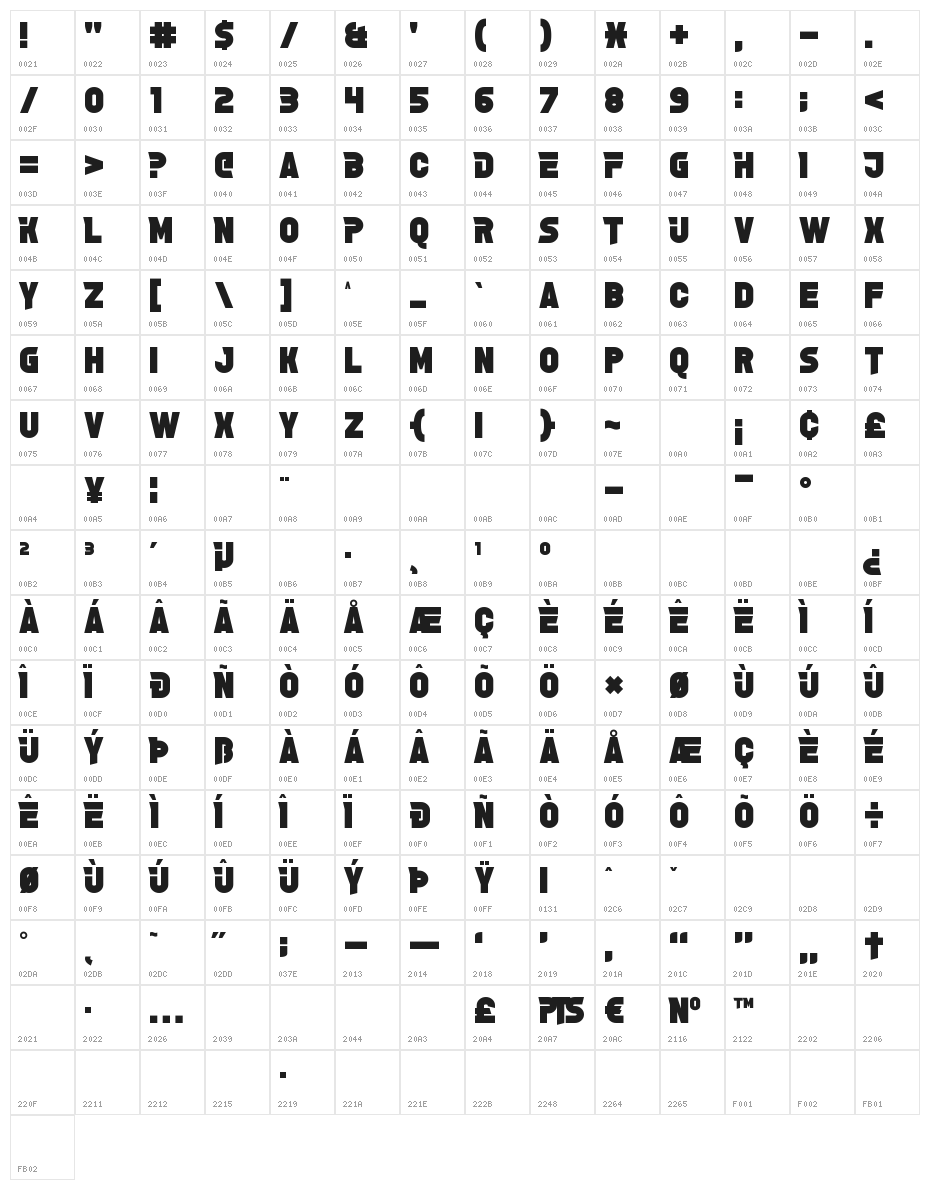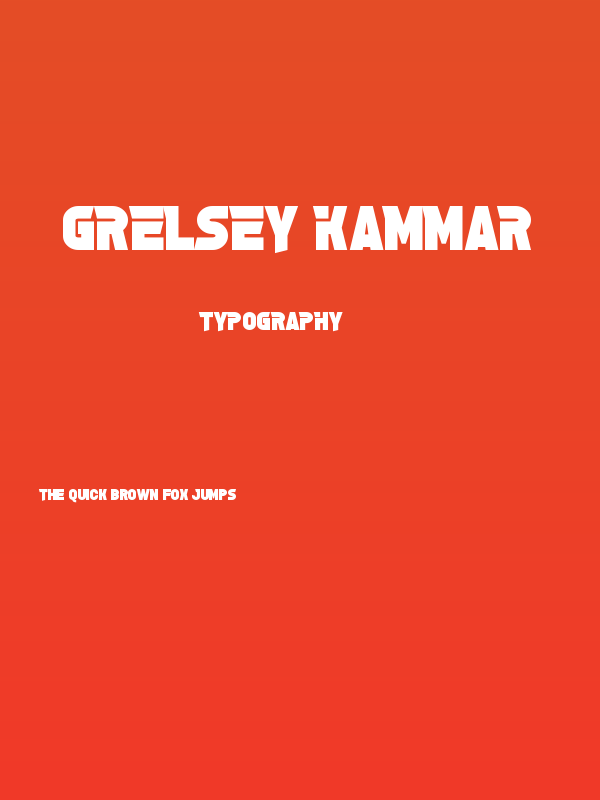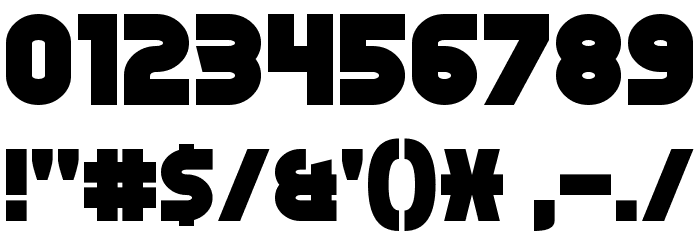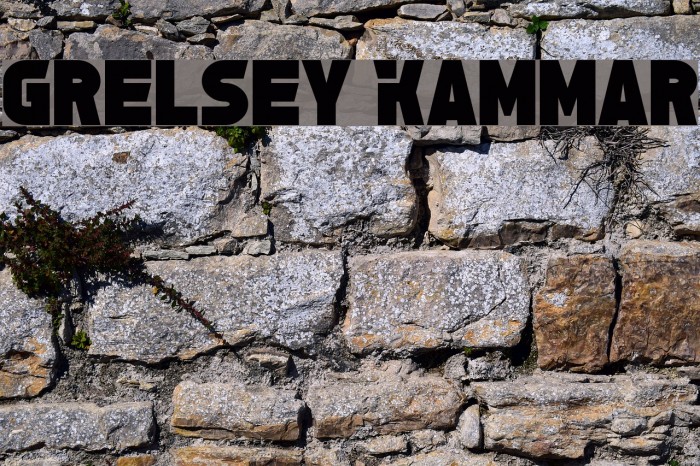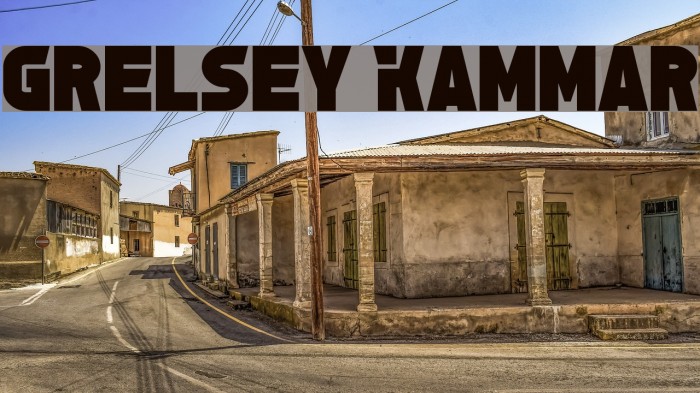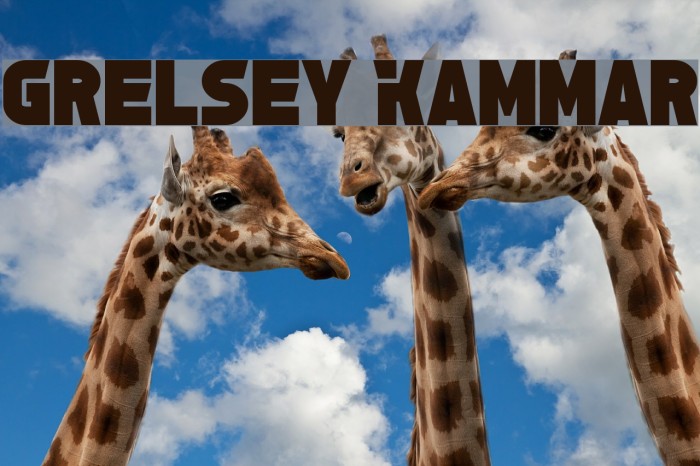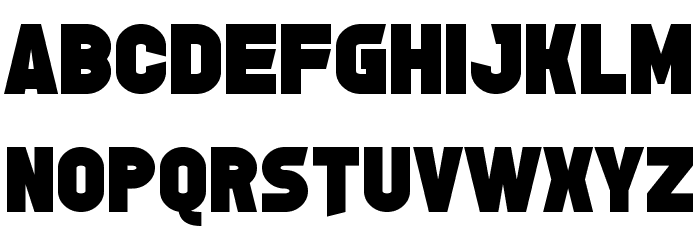
Grelsey Kammar Font
This bold and striking font features a geometric and angular design, characterized by its thick, block-like letters. The uppercase and lowercase letters maintain a consistent weight, giving the font a uniform appearance. The numbers and special characters follow the same bold style, ensuring a cohesive look across all characters. The font's sharp edges and strong presence make it ideal for attention-grabbing designs. Its modern and industrial feel is perfect for projects that require a bold statement.
| Proposed Projects | Ideal for posters, logos, headlines, and branding materials that require a strong visual impact. |